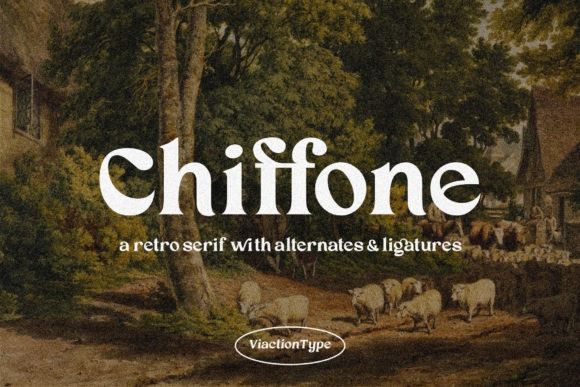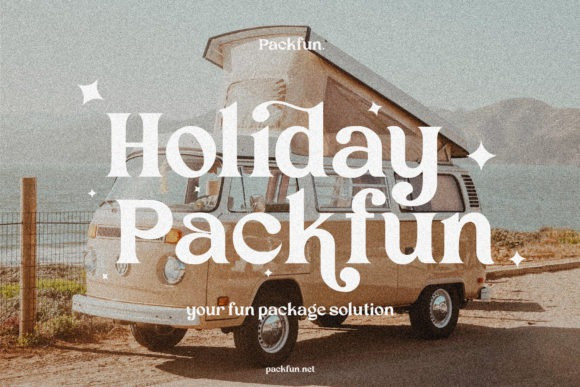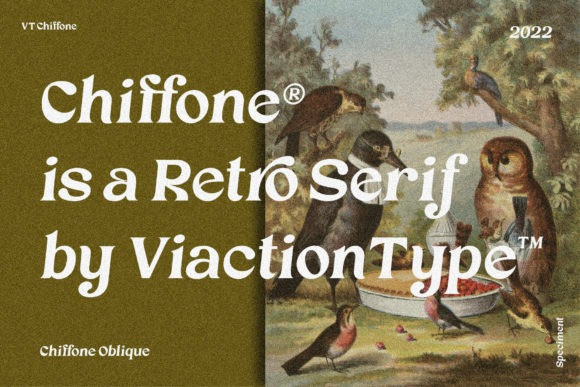
Chiffone Font
Chiffone is a beautiful retro serif font perfect for a wide range of creative projects. All you have to do is add it to your fonts’ library, use it on any of your designs, and let it make your work outstanding!